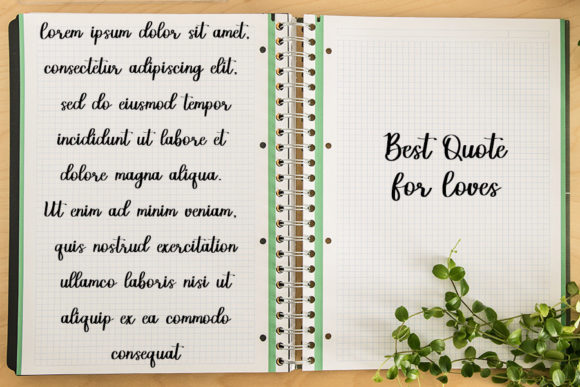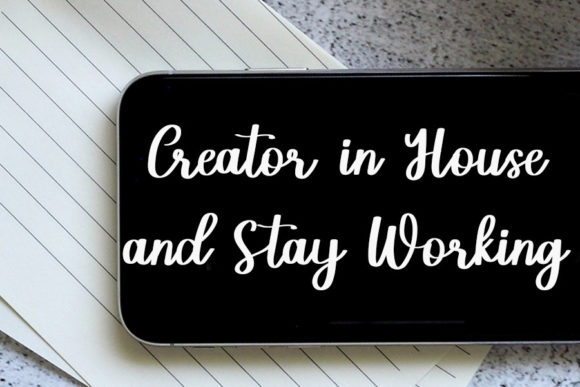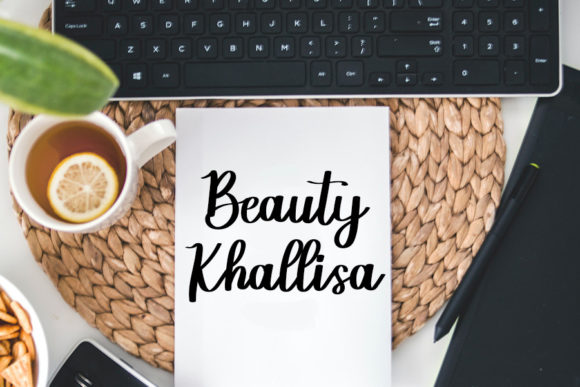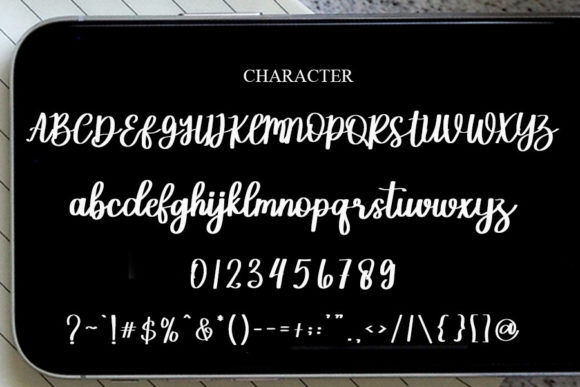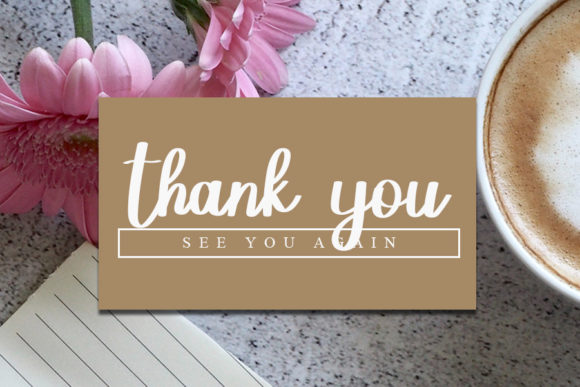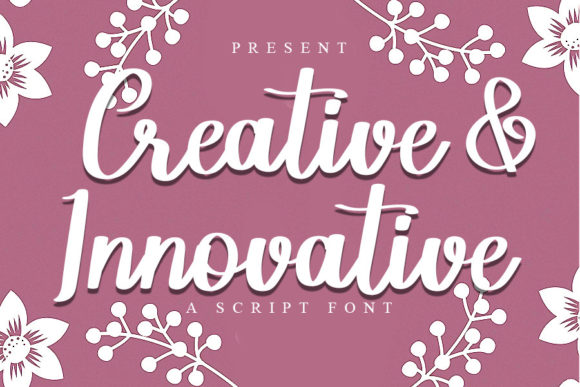
Introducing Creative & Innovative Font: Elevate Your Designs with a Personalized Touch
In the world of design, fonts play a crucial role in conveying the tone and personality of a brand or project. If you’re looking for a font that can add a touch of elegance and sophistication to your designs, look no further than Creative & Innovative Font. This beautiful, flowing, and bold paint-brushed handwritten font is perfect for designers and crafters seeking to add a personalized style to their work.
What Makes Creative & Innovative Font Stand Out?
Creative & Innovative Font is a unique and eye-catching font that boasts a distinctive, hand-painted look. Its bold and flowing strokes give it a dynamic and artistic feel, making it perfect for a wide range of design applications. Whether you’re working on a wedding invitation, a logo, or a greeting card, this font is sure to make your design stand out from the crowd.
One of the best things about Creative & Innovative Font is its versatility. Its elegant and sophisticated look makes it suitable for a wide range of design projects, including:
- Wedding invitations and wedding-related designs
- Thank you cards and other stationery
- Greeting cards for special occasions
Why Choose Creative & Innovative Font?
So, why should you choose Creative & Innovative Font for your next design project? Here are just a few reasons:
- Unique and eye-catching: This font is sure to grab attention and make your design stand out.
- Personalized style: The hand-painted look of this font gives it a personal and artistic feel that’s perfect for designers and crafters seeking to add a touch of elegance to their work.
- Versatile: This font can be used for a wide range of design projects, from wedding invitations to logos and more.
Tips for Using Creative & Innovative Font
To get the most out of Creative & Innovative Font, here are a few tips:
- Use it as a headline font: The bold and flowing strokes of this font make it perfect for headlines and titles.
- Pair it with a simple font: For body text, pair Creative & Innovative Font with a simple, easy-to-read font to create a beautiful contrast.
- Experiment with colors: The hand-painted look of this font makes it perfect for use with a variety of colors and textures.
Whether you’re a professional designer or a crafter looking to add a personal touch to your projects, Creative & Innovative Font is sure to inspire. Its beautiful, flowing strokes and bold, hand-painted look make it perfect for a wide range of design applications. So go ahead, get creative, and see what amazing designs you can create with Creative & Innovative Font!